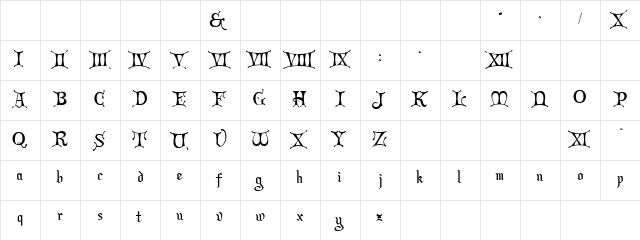
Roman Grant Regular
Design Context for Roman Grant Typeface
Roman Grant is a composed and adaptable typeface that performs quietly and consistently across a wide range of design contexts.